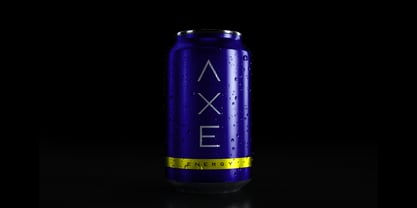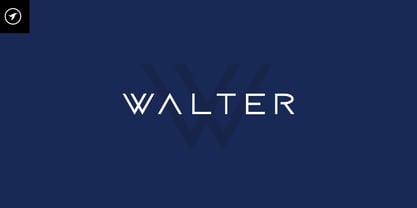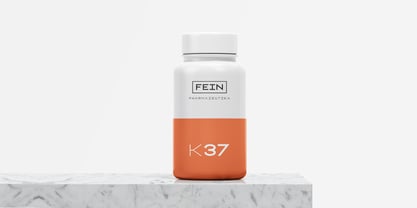
Walter Sci Fi
von Designova
Die Schriftfamilie Walter Sci Fi wurde von Jean Johnson entworfen und von Designova veröffentlicht. Walter Sci Fi enthält 10 Stile und Familienpaketoptionen.
A modern typeface specifically made for fashion, sci-fi, cinematic and unique statement with a special charm that makes it perfect for beautiful headlines, branding, logotypes & display usage. This all-caps font is also perfect for creating outstanding logos, promotional content and marketing graphics that can really grab the attention of your visitors. Please see the examples shown above to get an idea about the capability of this typeface.
WALTER comes with 5 weights (Thin, Light, Regular, Bold & Heavy) along with italic versions of all weights.